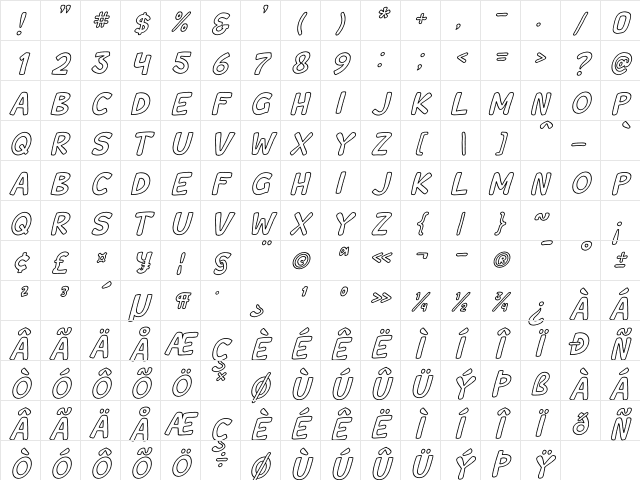
Wishcar Moundy Outline Italic Free Font
Wishcar Moundy Outline Italic
Foundry: Perspectype Studio
Designer: Heru Utama Putra
Design Context for Wishcar Moundy Outline
Wishcar Moundy Outline is built around its visual character rather than neutral utility - its distinctive forms are designed to make an impression at display sizes. The slanted form adds forward momentum and visual energy.
Font Pairing: Pair with a clean neutral sans-serif for body copy to let Wishcar Moundy Outline's character lead without overwhelming the composition.
Pro Tip: Use Wishcar Moundy Outline exclusively at display sizes - it was designed to be seen, not read at length. Let a neutral companion handle body copy.